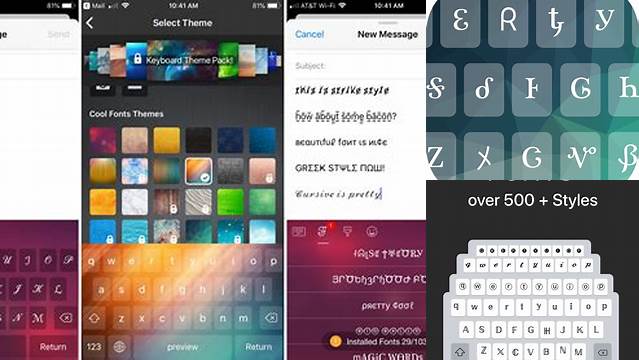
IPhone Keyboard Fonts: Free Options To Customize
Hey guys! Ever get bored with the same old font on your iPhone keyboard? I know I have! Luckily, there's a whole world of cool, free keyboard fonts out there just waiting for you to discover them. In this article, we'll dive deep into the best free keyboard fonts for iPhone, how to get them, and how to make your texting and typing game a whole lot more interesting. We'll explore a bunch of options, from sleek and modern to quirky and playful. So, if you're ready to spice up your iPhone's look and feel, keep reading! We'll cover everything from downloading the right apps to navigating the font selection process, ensuring you can start using these awesome fonts right away. Forget the generic look, and say hello to a keyboard that truly reflects your personality. Let's get started on this font-tastic journey!
Why Change Your iPhone Keyboard Font?
Alright, let's talk about why you might even want to change your iPhone keyboard font in the first place. Honestly, it's all about personalization and making your phone feel more like you. Think about it: You spend a ton of time typing on your iPhone every day. Why not make that experience a little more enjoyable? Changing your font can completely transform how your phone looks and feels. It's a simple way to express your individuality and stand out from the crowd. Maybe you're into a minimalist aesthetic and want a clean, modern font. Or perhaps you're feeling a little more adventurous and want something bold and eye-catching. Whatever your style, there's a font out there that's perfect for you. Beyond aesthetics, customized fonts can also improve readability. Some fonts are designed to be easier on the eyes, especially if you spend a lot of time staring at your screen. This can be a real game-changer if you're prone to eye strain. It's a small change that can make a big difference in your daily digital life. Plus, let's be honest, it's just plain fun to play around with different fonts and see what works best. So, ditch the default and unlock a new level of customization for your iPhone!
Top Apps for Free Keyboard Fonts on iPhone
Now for the good stuff! To get these awesome fonts, you'll need the right apps. Fortunately, there are several fantastic, free apps available that make it super easy to customize your keyboard. Let's check out some of the best ones out there. These apps generally work by installing a custom keyboard within your iPhone settings. Once installed, you can select and use various fonts directly within your messaging apps, email, and other text-based applications. Keep in mind that while the apps themselves are free, some may offer premium features or additional fonts through in-app purchases. However, the free options are usually more than enough to get you started and find a font you love. Make sure to check the app's reviews and ratings to ensure it's a reliable and trustworthy option. Let's explore some of the best choices available right now! I'll give you a quick rundown of what makes each app special and how it can help you transform your iPhone keyboard game.
1. Fonts – Cool Fonts Keyboard
This is a super popular choice for a reason! Fonts – Cool Fonts Keyboard is packed with a wide variety of fonts, from elegant and stylish to fun and quirky. The app is really easy to use, with a user-friendly interface that makes it simple to find and install new fonts. One of the coolest things about this app is the real-time preview feature, which lets you see how your text will look in different fonts before you start using them. This is a great way to test out different styles and find the perfect one for your needs. The app also supports a variety of languages, making it a versatile choice for users around the world. While the free version has a ton of options, you can unlock even more fonts and features through in-app purchases. But trust me, the free selection is already pretty amazing! With Fonts – Cool Fonts Keyboard, you'll be able to express your personality and elevate your text game in no time. It's the perfect app for those who want a wide variety of fonts at their fingertips and an easy-to-navigate experience.
2. Stylish Fonts
If you're after a sleek and stylish look, Stylish Fonts is a fantastic option. This app focuses on offering a curated collection of modern and elegant fonts that will give your iPhone a sophisticated vibe. What makes Stylish Fonts stand out is its focus on aesthetics and design. The fonts are carefully selected to ensure they look great on your iPhone screen. The app is super easy to set up, and you can start using your new fonts in minutes. It also offers handy features like text preview, allowing you to see how your text will look before you send it. While it has a slightly smaller font selection than some other apps, the quality and style of the fonts are top-notch. If you appreciate a clean, modern look and want to add a touch of class to your iPhone keyboard, Stylish Fonts is a great pick. It’s all about understated elegance and giving your texts a touch of flair. With Stylish Fonts, you can elevate your everyday communication and stand out from the crowd.
3. Font Keyboards
Font Keyboards is another solid choice, offering a diverse range of fonts to suit various tastes. This app includes a wide selection, from classic and professional to fun and whimsical styles. The interface is pretty straightforward, making it easy to browse and select your favorite fonts. One of the advantages of Font Keyboards is its frequent updates, ensuring you always have access to new and trendy fonts. This is great if you like to keep your style fresh and up-to-date. The app also offers a useful feature that allows you to easily copy and paste your text in different fonts across various apps. While it may not have the most extensive library, the selection is carefully curated and provides a good balance of styles. For anyone looking for a versatile app with a wide variety of options, Font Keyboards is worth checking out. It's a great way to personalize your iPhone and make your text messages and social media posts more engaging. It's a solid all-around choice.
Tips and Tricks for Using Keyboard Fonts Effectively
Now that you've got your new keyboard fonts, let's talk about some tips and tricks to make the most of them. While these fonts are super fun, it’s important to use them wisely to ensure your messages are still easy to read. First off, consider your audience. Some fonts are more playful, while others are more formal. Choose fonts that match the tone of your conversation. Using a super elaborate font for a work email probably isn't the best idea, but it could be perfect for texting with your friends. Practice with different fonts to get a feel for how they look on your screen. Some fonts may appear different depending on the app you're using or the size of the text. Keep your text size in mind, too. Smaller fonts might be harder to read, especially for older people or those with visual impairments. Avoid using too many fonts at once. While variety is fun, it can also make your text look cluttered and confusing. Stick to a few fonts that complement each other to maintain a consistent look. Regularly update your keyboard app to ensure you have access to the latest fonts and features. Apps are always adding new styles, so you can keep your keyboard fresh. Finally, don’t be afraid to experiment! Try different fonts, colors, and effects to see what works best for you. The key is to have fun and find a style that reflects your personality. With these tips, you'll be able to use your new fonts effectively and make your text messages stand out for all the right reasons!
Potential Drawbacks and Considerations
While keyboard fonts are a fantastic way to customize your iPhone, there are a few potential drawbacks to keep in mind. Understanding these considerations will help you make the best choice for your needs and ensure a smooth user experience. One of the biggest things to think about is compatibility. While most apps support custom fonts, there might be instances where the fonts don't display correctly or appear as the default font. This can happen in certain apps or with specific older devices. Before you commit to a font, test it across different platforms and apps to ensure it works as expected. Consider the privacy settings of the app you're using. Some apps may require full access to your keyboard, which means they can potentially collect what you type. While most reputable apps are safe and trustworthy, it’s important to read their privacy policies and ensure you're comfortable with their practices. Another thing to think about is readability. Some fonts can be difficult to read, especially in small sizes. Opt for fonts that are clear and easy on the eyes to avoid frustrating your recipients. Be mindful of battery life, as some apps may consume more battery power than others. If you notice your iPhone battery draining faster, try closing other apps or adjusting the keyboard app's settings. Finally, stay updated with the latest iOS updates. Apple regularly releases updates that may affect the performance of keyboard apps. Keeping your iOS and keyboard apps current can prevent compatibility issues and ensure a smooth user experience. Being aware of these potential drawbacks will help you enjoy your custom keyboard fonts without any hiccups.
Conclusion: Embrace the Fun of iPhone Keyboard Customization!
Alright, guys, that's a wrap! We've covered everything you need to know about the best free keyboard fonts for iPhone. From the reasons why you might want to change your font to the top apps available and how to install and use them, you're now ready to transform your typing experience. Remember, the most important thing is to have fun and express yourself! Experiment with different fonts, discover what works best for you, and let your personality shine through your texts and messages. The apps mentioned here are a great starting point, but don’t be afraid to explore the App Store and find even more options. The world of custom fonts is vast and exciting, and there’s a perfect font out there for everyone. So, go ahead, download an app, install some new fonts, and start typing in style! Who knows, you might just become the envy of all your friends. Enjoy your font-tastic iPhone keyboard journey, and happy typing!